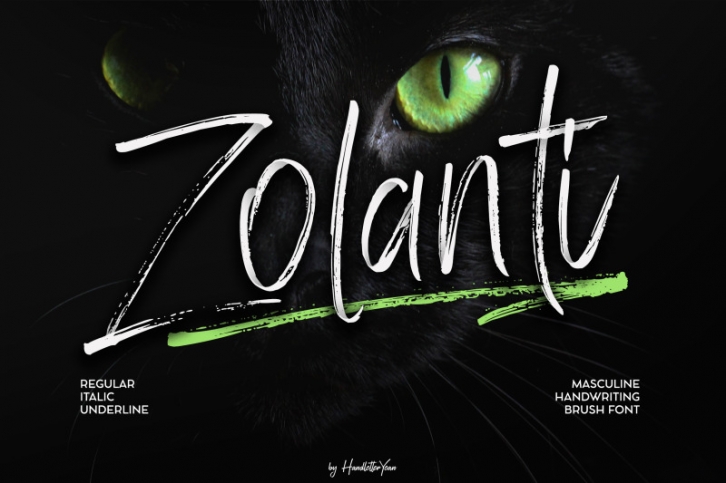
Zolanti is a handwritten brush font that looks rough and masculine. If you need a brush font that suitable for any kind of your design project then Zolanti is what you want. You can use this font on your creative project like logos, printed quotes, posters, invitations, cards, product packaging, headers, Logotype, Letterhead, Apparel Design, Label, and many more. Style in this font include regular, italic and underline, its completed with uppercase and lowercase, multi-language support, numbers, punctuation, and also some ligatures.
2. Style in this font include: Regular, Italic, Underline
3. Alternates
7. Support multilingual; ä ö ü Ä Ö Ü ß ¿ ¡